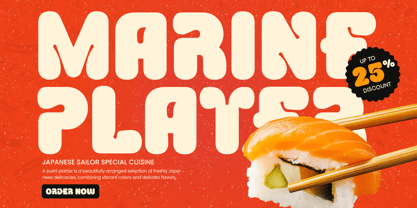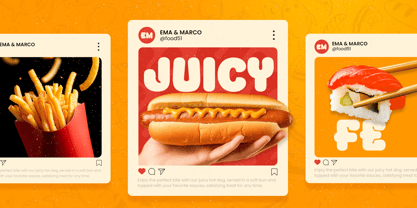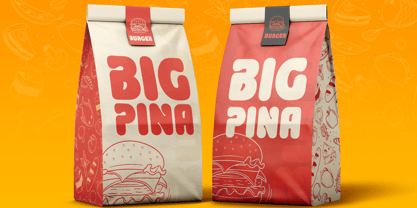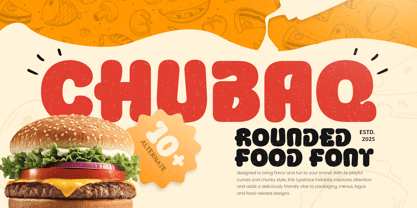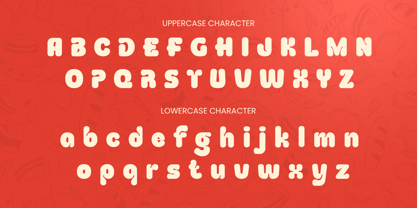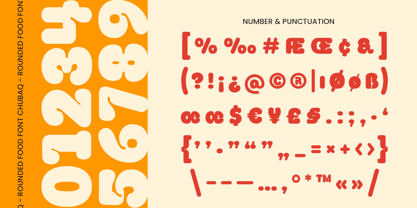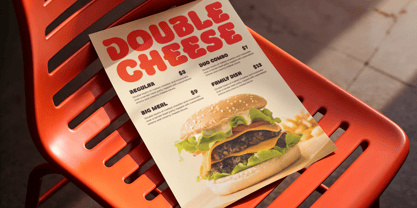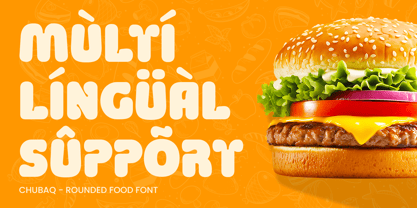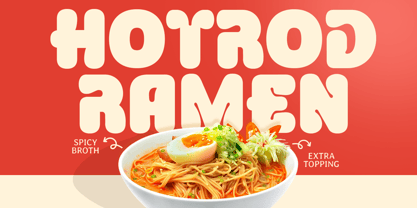
Chubaq
The Chubaq Font Family was designed by Zamroni Hamzah and published by Sensatype Studio. Chubaq contains 1 styles. More about this family
CHUBAQ is a rounded food font designed to bring delicious charm and friendly energy to your creative projects. With its smooth curves and plump, appetizing shapes, this typeface is ideal for food branding, snack packaging, restaurant visuals, and fun promotional designs.
Crafted to feel warm and approachable, CHUBAQ delivers a bold yet soft aesthetic that works beautifully for menus, posters, kids’ items, product labels, and cheerful social media content. Its rounded construction makes every letter look tasty, inviting, and visually delightful — perfect for designs that need personality and flavor.
Whether you're building a food brand identity, designing playful advertising, or creating colorful packaging, CHUBAQ brings joy, friendliness, and irresistible visual appeal to any layout.
CHUBAQ – Rounded Food Font Features
• Smooth bold rounded letterforms for food & playful design
• Perfect for restaurants, snack packaging, menus, and fun branding
• Friendly shapes with high visual appeal
• Great for kids’ products, posters, and social media graphics
• Uppercase, lowercase, numerals, and punctuation included
• OpenType features for design versatility
Multilingual support for Afrikaans, Albanian, Asu, Basque, Bemba, Bena, Breton, Chiga, Cornish, Dutch, English, Estonian, Filipino, Finnish, Friulian, Galician, German, Gusii, Indonesian, Irish, Italian, Kabuverdianu, Kalenjin, Kinyarwanda, Luo, Luxembourgish, Luyia, Machame, Makhuwa-Meetto, Makonde, Malagasy, Manx, Morisyen, North Ndebele, Nyankole, Oromo, Portuguese, Quechua, Romansh, Rombo, Rundi, Rwa, Samburu, Sango, Sangu, Scottish Gaelic, Sena, Shambala, Shona, Soga, Somali, Spanish, Swahili, Swedish, Swiss, and more.
Make your designs look tasty and cheerful with CHUBAQ – the perfect rounded font for food, fun, and friendly branding. 🍩✨